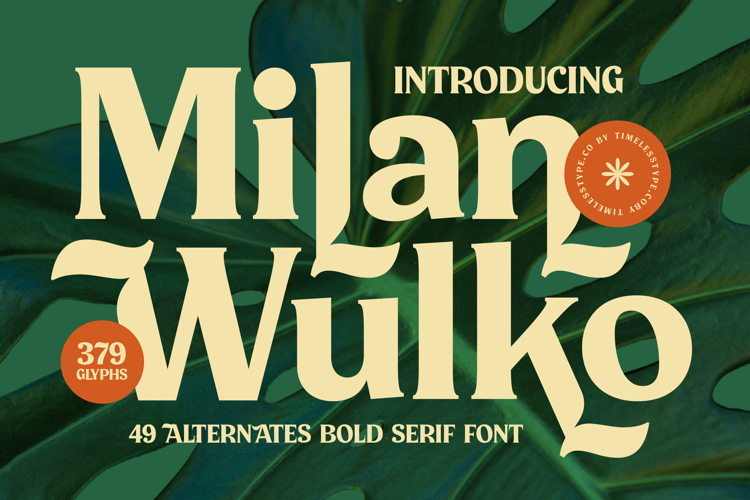
Milan Wulko - Alternate Bold Serif Font
Make an unforgettable statement with Font Milan Wulko - Alternate Bold Serif Font Serif Display, a typeface that masterfully blends classic serif elegance with a contemporary, bold aesthetic. This sophisticated display serif is meticulously crafted to command attention, offering a distinctive visual presence that immediately elevates any design. Its strong character ensures your message is not just seen, but felt.
Unleash unparalleled creative versatility with Font Milan Wulko - Alternate Bold Serif Font Serif Display, featuring 379 glyphs and 49 unique alternates for customized, impactful typography. Its high-contrast strokes and elegant serifs create compelling visual dynamics. With its extensive multilingual support, Font Milan Wulko - Alternate Bold Serif Font Serif Display adapts seamlessly across global markets, making it incredibly versatile for international projects.
Perfectly suited for projects demanding luxury and distinction, Font Milan Wulko - Alternate Bold Serif Font Serif Display excels across numerous applications. It is ideal for luxury branding, high-end packaging, and editorial design, ensuring headlines exude prestige. This font is also exceptional for magazine layouts, logo design, sophisticated invitations, and any creative endeavor where an impactful display is paramount.
Elevate your visual narratives and leave a lasting impression with the unique charm of Font Milan Wulko - Alternate Bold Serif Font Serif Display. More than just a font, it’s a design asset engineered to bring a distinctive voice and timeless sophistication to your work. Integrate this exceptional display serif into your creative toolkit to ensure projects stand out with powerful visual impact.